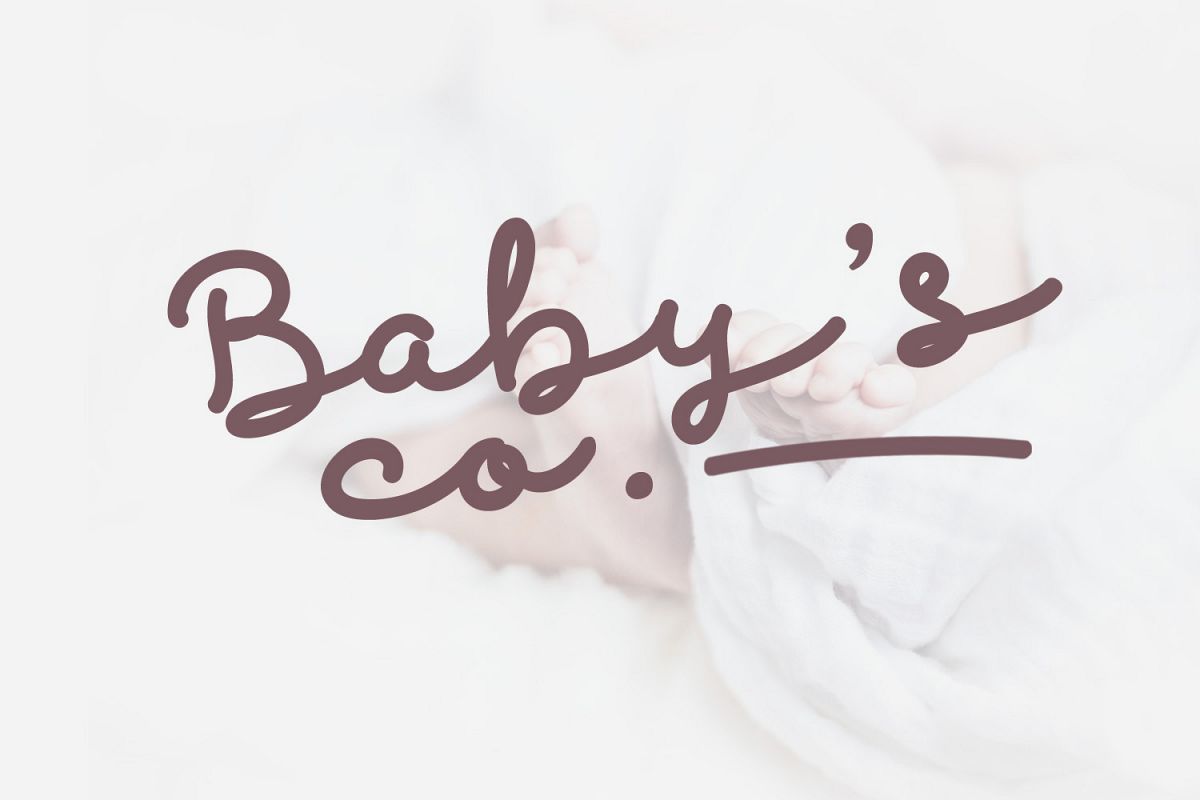
Discobaby
A script font with playful children handwritting style to make a fun vibe into your design. Suitable for packaging, logo, branding, website headline, food menu, kids or woman apparel designs, signatures, etc.